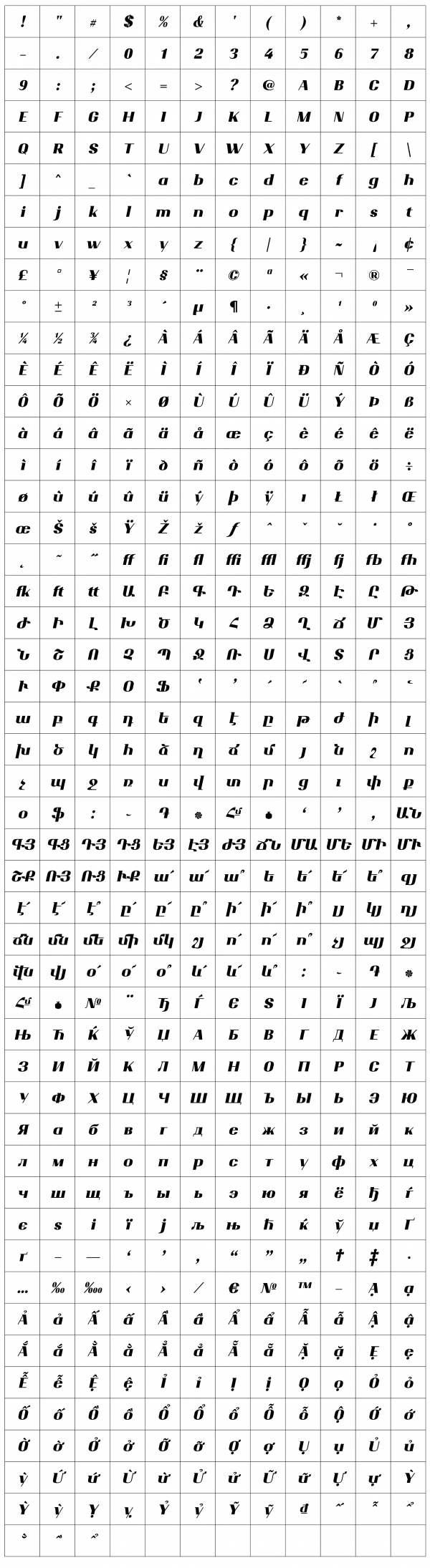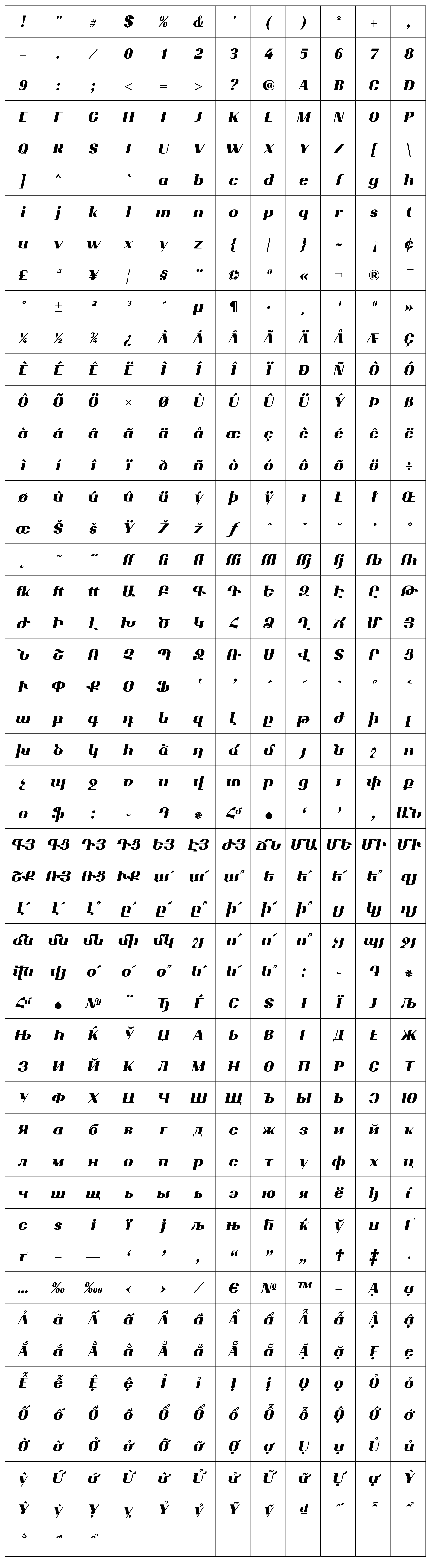
ASF Samuel Black Italic
Designer: Angella Poghosova
Design date: 2022
The font family includes Armenian, Latin, Cyrillic and Vietnamese alphabet systems.
The font can be used as a Display typeface.